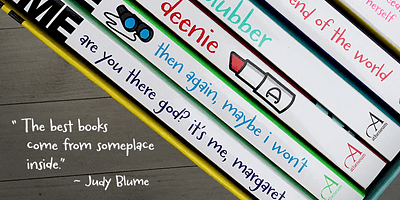
Comic Sidekick Font is a fantastic choice for projects that aim for a playful, energetic, and cartoonish vibe. It’s perfectly suited for comic book lettering, children's party invitations, game titles, fun branding for kid-friendly products, and lighthearted social media graphics. Its whimsical and expressive nature makes it ideal for conveying joy and lightheartedness.
What makes Comic Sidekick Font so exciting is its ability to immediately inject personality and fun into any text. It often features bouncy baselines, exaggerated strokes, and a handmade feel that perfectly captures the essence of comic strips and animated adventures. This font doesn't just display words; it brings them to life, adding a dynamic and approachable character to your designs.
The Comic Sidekick Font family typically offers variations to enhance its versatility. You'll often find Comic Sidekick Regular as the main style, possibly a bold version for emphasis, and sometimes even a dingbat set with relevant comic-style elements like speech bubbles or action lines. These family members ensure you can maintain a consistent, playful theme across various design applications. For those ready to explore its vibrant charm, Comic Sidekick Font Free Download provides a fantastic opportunity to see its capabilities firsthand.